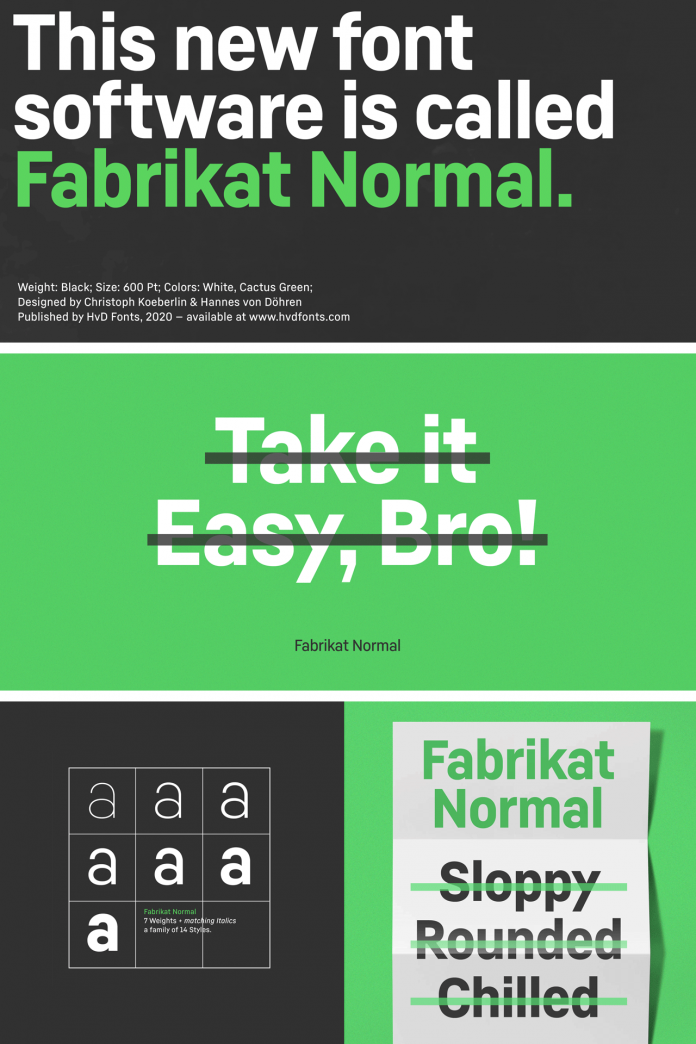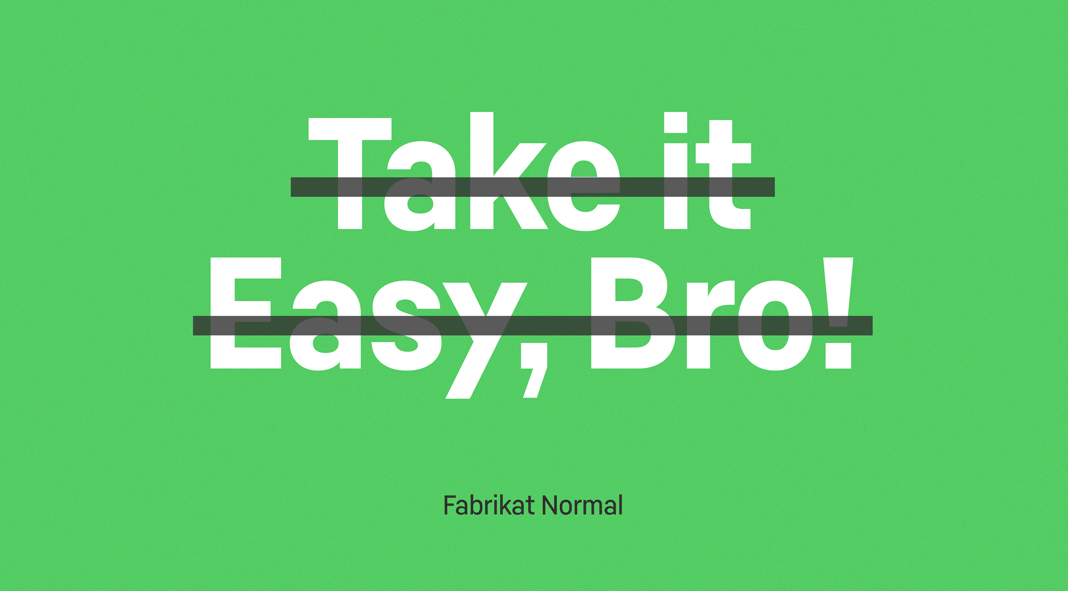
Fabrikat Normal, a geometric font family inspired by 20th-century German engineers’ typefaces.
Designed by Hannes von Döhren and Christoph Koeberlin, Fabrikat Normal is optimized for small sizes and long texts. Due to its constructed architecture, it is also well suited for headlines or display use. Fabrikat Normal can be combined with the more straight and space-saving Fabrikat Kompakt as well as the reduced typeface of Fabrikat Mono.
The entire font family consists of fourteen styles including seven weights ranging from Hairline to Black plus matching Italics for each weight. See more below or click on one of the following links to purchase the family as a heavily discounted introductory offer.